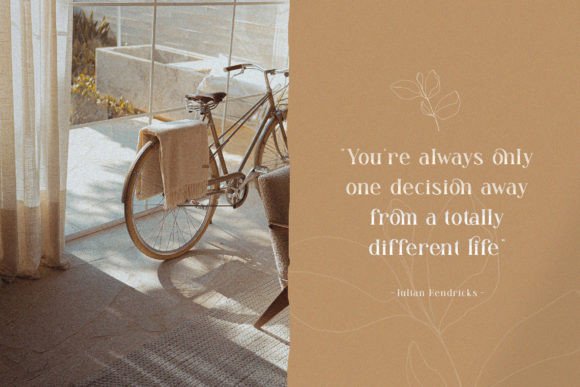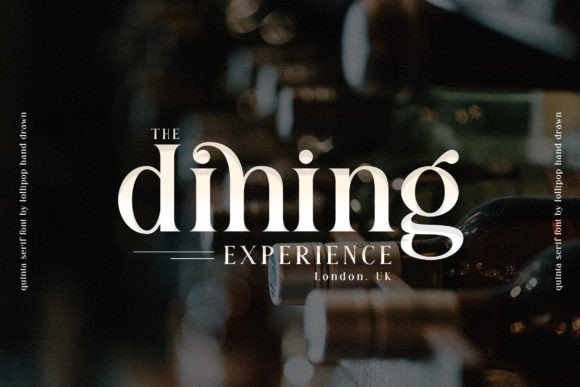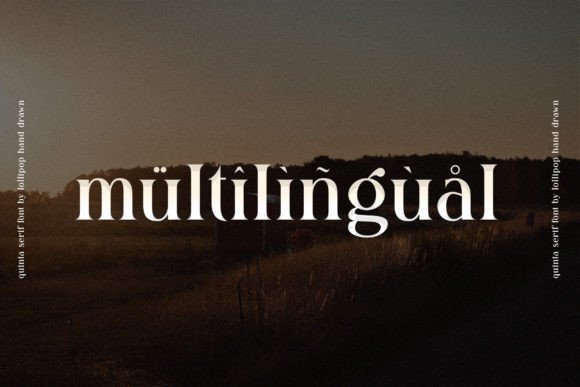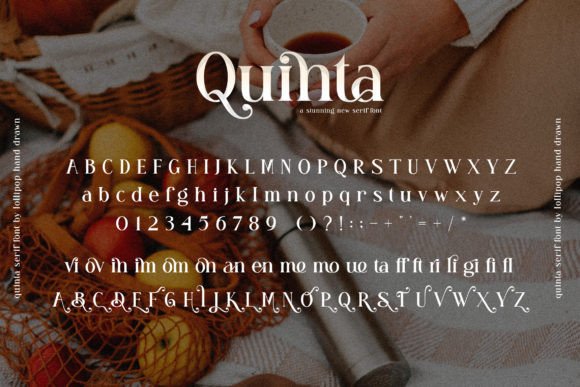
Introduction to Quinta Font
Have you ever stared at a blank canvas, eager to bring a creative project to life, but struggled to find the perfect font to set the tone? I know I have. That’s why I’m excited to share with you my latest discovery: Quinta Font.
As a designer, I’m always on the lookout for high-quality fonts that can elevate my designs and make them stand out. And let me tell you, Quinta Font is a game-changer. With its sleek, modern style and clean lines, this font is sure to take your designs to the next level. Plus, its transparent background makes it easy to work with, even when designing with complex layers.
Key Features of Quinta Font
- Unique, handcrafted design with intricate details and textures, adding a touch of elegance to any creative project
Honest Review: Quinta Font
As a designer, I’m always on the lookout for high-quality design resources to elevate my creative projects. Quinta Font is a free download that caught my attention with its unique and elegant design.
What works well is the flexibility of Quinta Font. It comes in a variety of styles, from clean and minimalist to bold and playful. This makes it an excellent choice for designers working on a range of creative projects, from branding and marketing materials to digital products and web designs.
- Customizable and versatile, suitable for a wide range of creative projects
Overall, I’m impressed with Quinta Font. Its unique design, flexibility, and high quality make it an excellent addition to any designer’s toolkit. With a little creativity, the possibilities are endless.
Quinta Font
Quinta Font is a free design resource ideal for creative projects requiring a high-quality font. Its transparent background makes it versatile for various design applications.
- Use it for various design projects, such as logos, business cards, and brochures.
Quinta Font is commonly used for:
- Branding and identity design.
- Print and digital marketing materials.
- Web design and development.